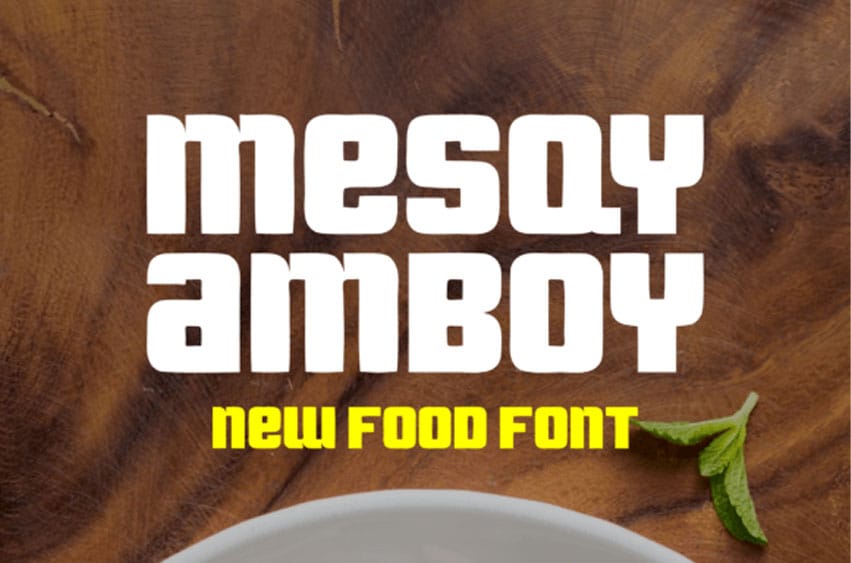
Mesqy Amboy Font is a very versatile font that can be used for posters, invitations, greetings, and more.
However, it shines brightest when used for food posters, menu lists, and product promotions related to the food and beverage industry.